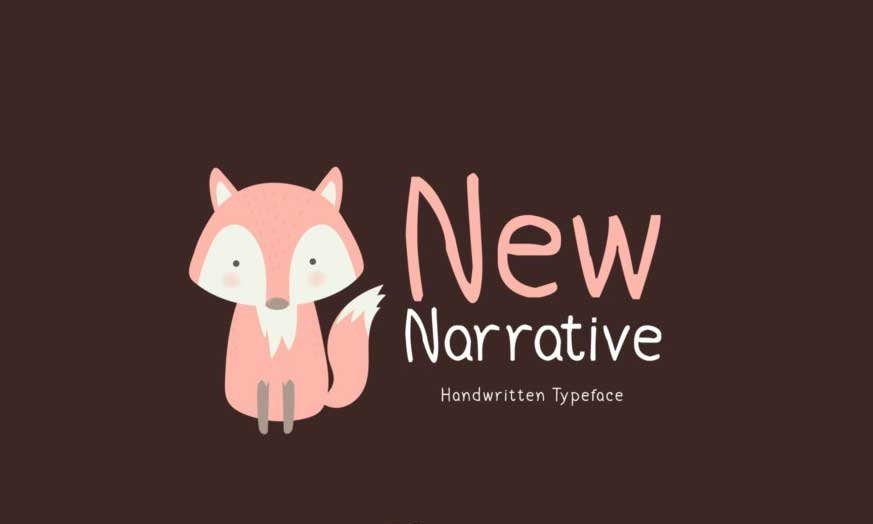
New Narrative Font
New Narrative is a brand new handwritten display font, perfectly suited for stationery, logos, t-shirts, paper, print design, website headers and much more.